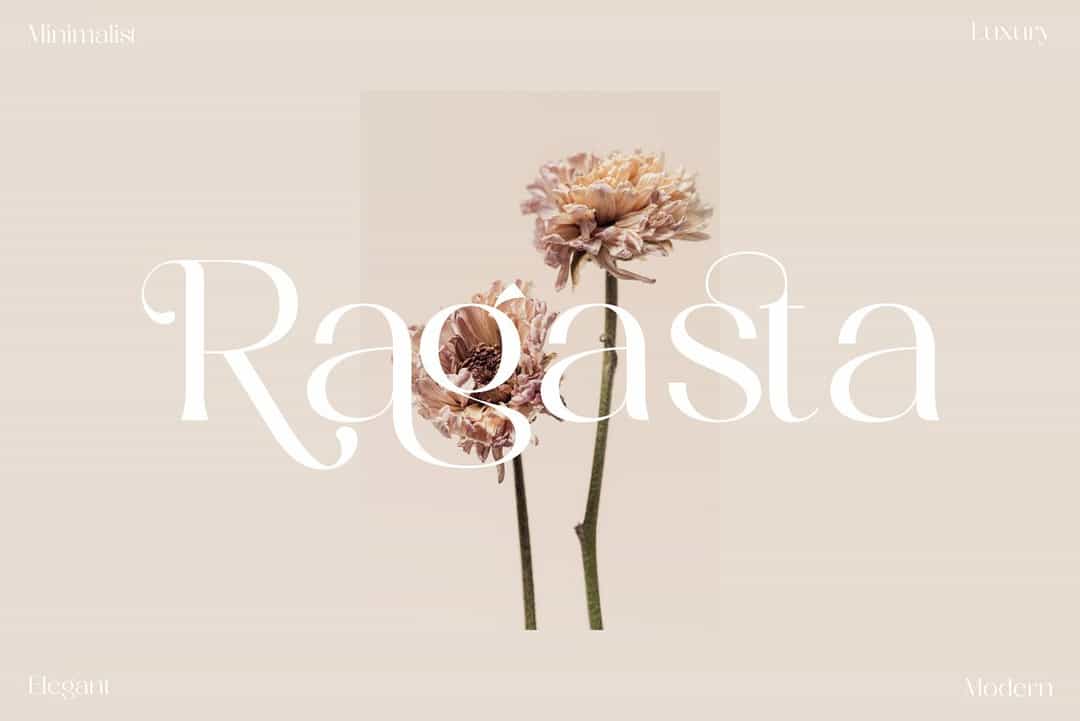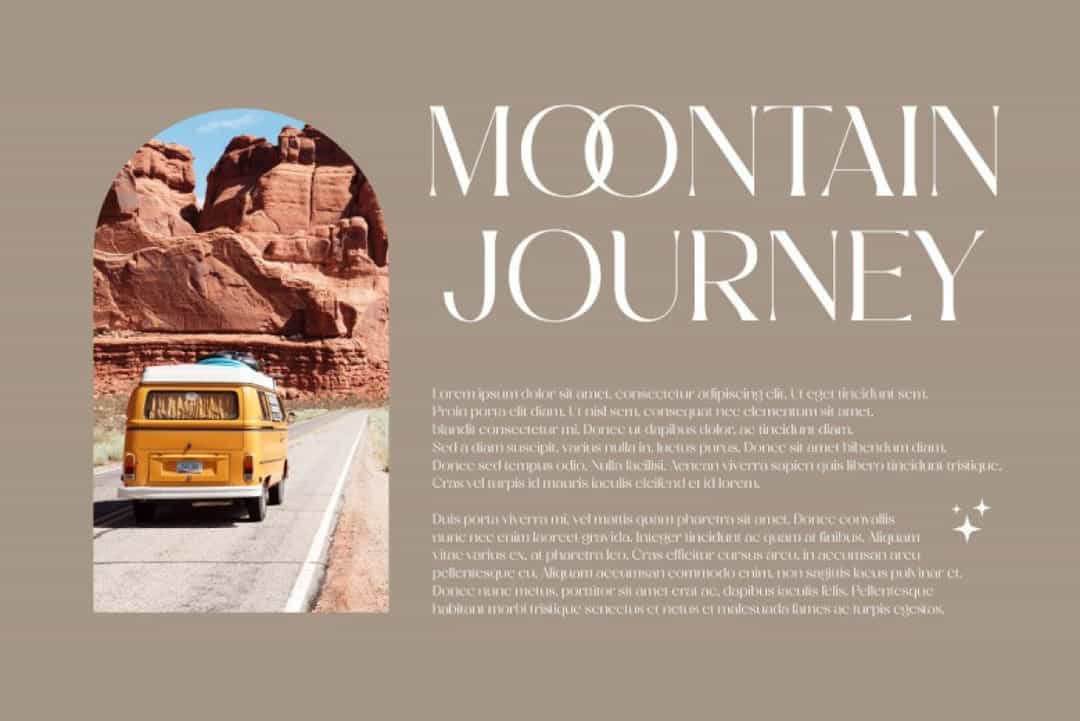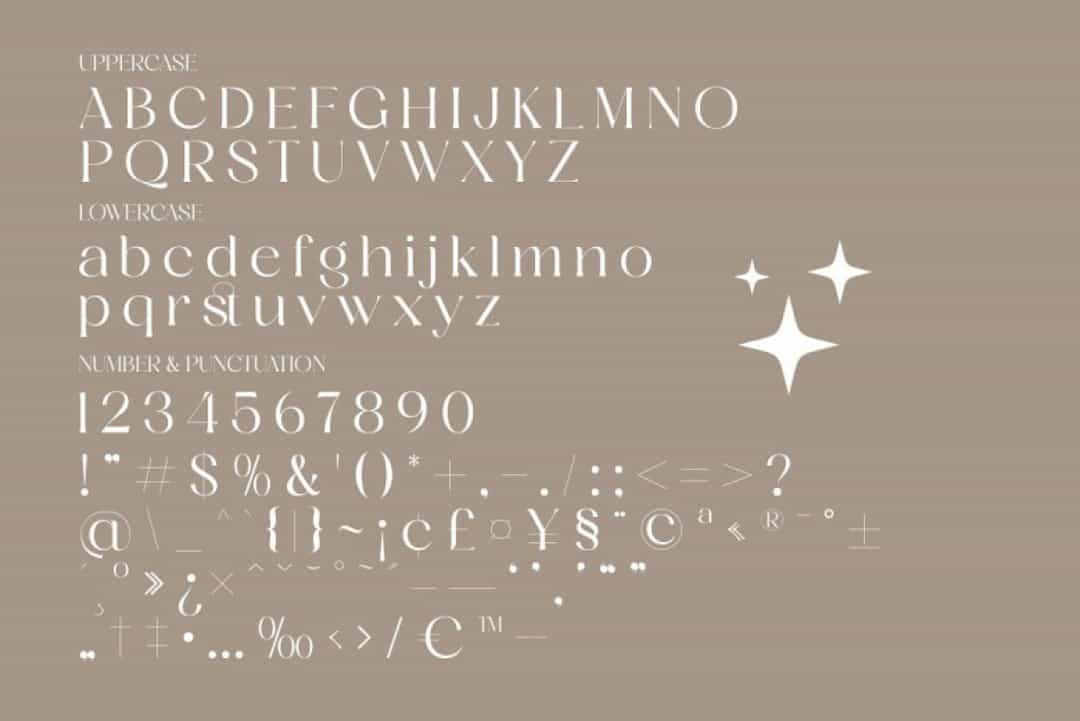
Ragasta is an elegant and classic serif font. PUA encoded, you have access to all its glyphs, swashes and characters effortlessly! Use it in your designs with pride and be impressed with what results!